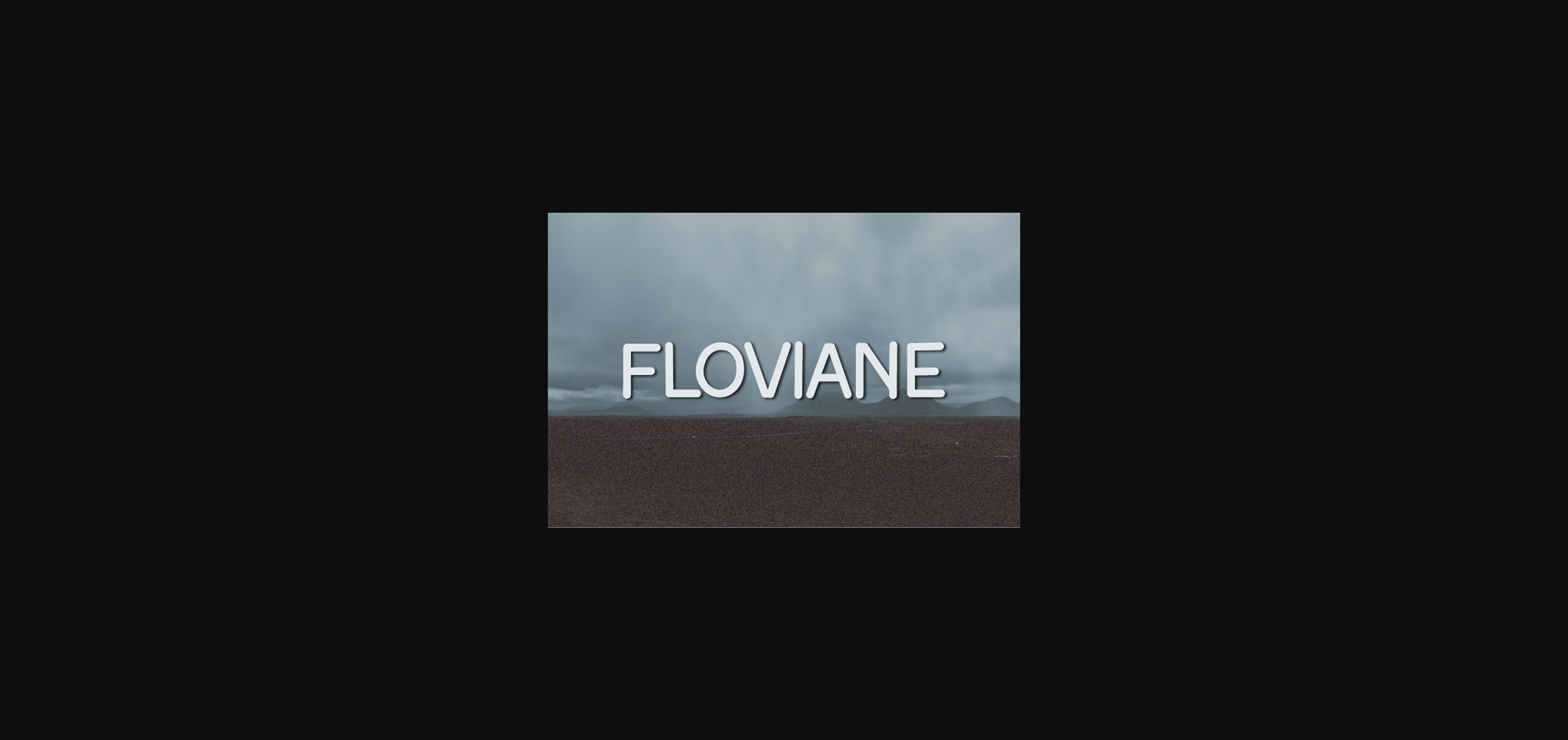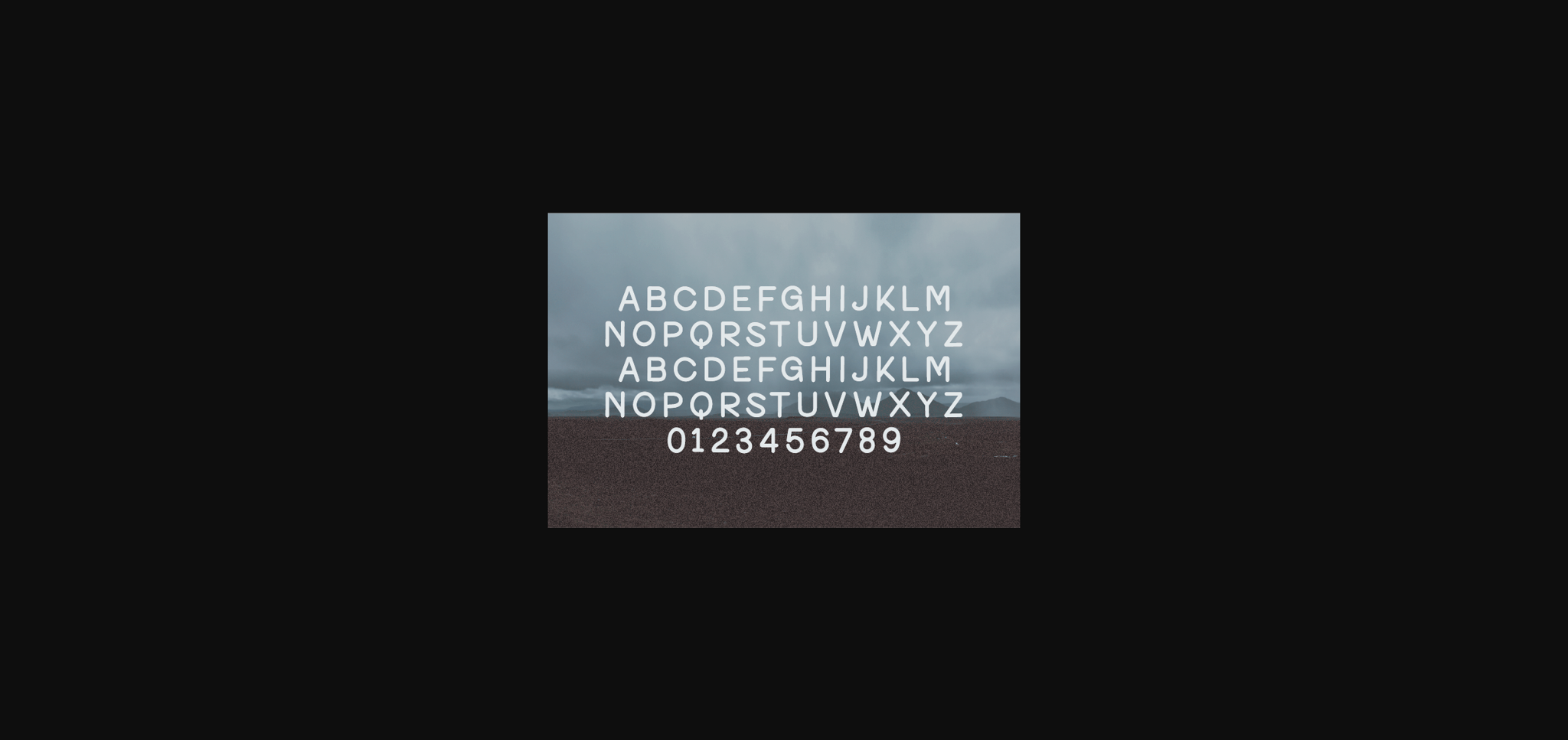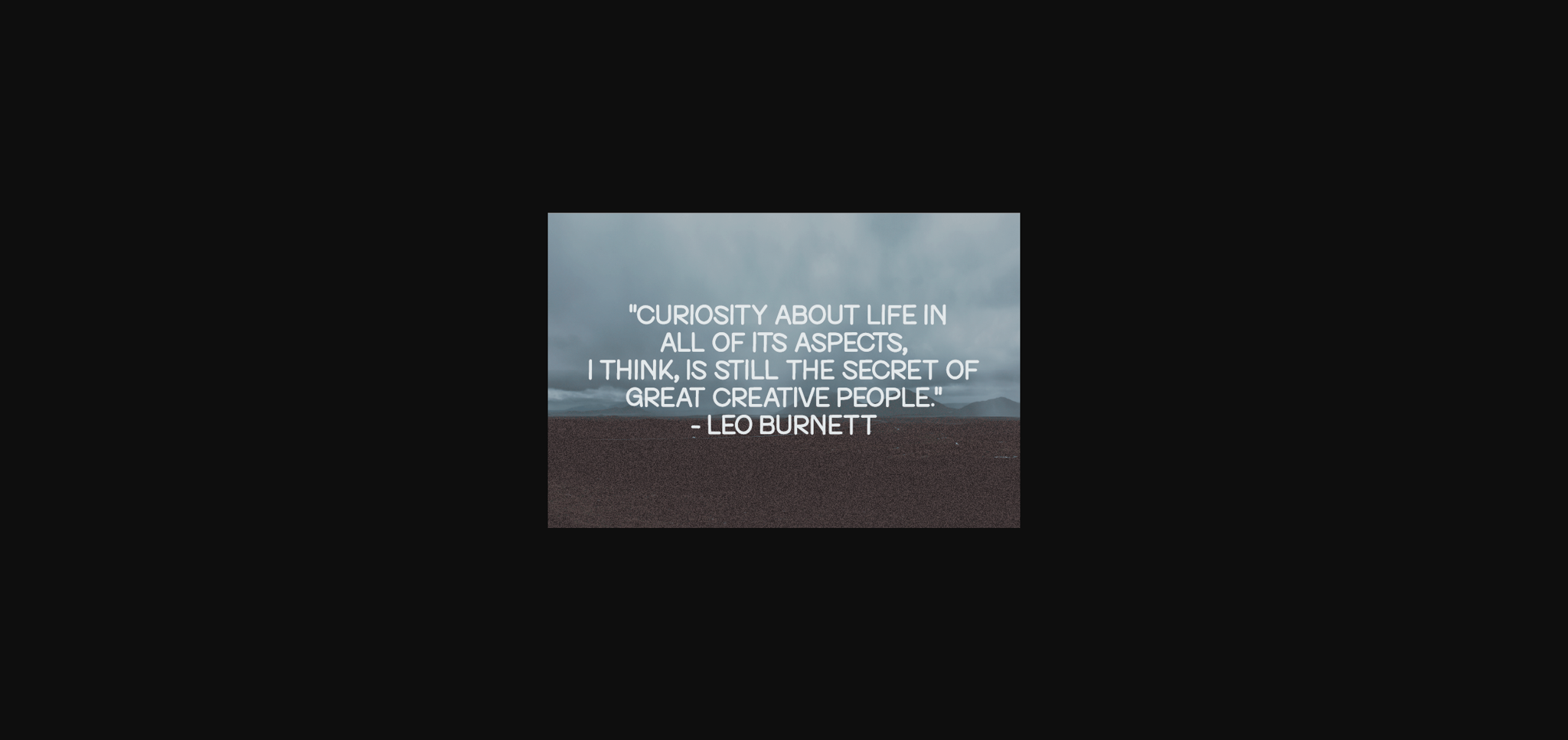
HomeSans Serif FontsFloviane Font Sans Serif Fonts Floviane Font FacebookXPinterestWhatsApp 1 of 6 ... Floviane Font Poster 2... Floviane Font Poster 3... Floviane Font Poster 4... Floviane Font Poster 5... Floviane Font Poster 6... About Floviane Font Floviane is a natural sans serif font made without changing a single node in each character’s indentation- this makes this font very interesting and unique. Perfect for quotes, notes, tees, and any product design. DOWNLOAD NOW People also explored Dollicious Eats Font Roses in Barcelona Font Teacher Jump Font Romantic Soul Font Karima Font Fireclay Font Sabrina Darwin Font Royalblue Font Jubie 294 0 TagsFloviane Font Previous articleNarcissus FontNext articleDemetrius Font LEAVE A REPLY Cancel reply Comment: Please enter your comment! Name:* Please enter your name here Email:* You have entered an incorrect email address! Please enter your email address here Website: Save my name, email, and website in this browser for the next time I comment. Personal Use Free Stone Garden Personal Use Free Read more about this font Pan Pizza Personal Use Free Read more about this font Darla Personal Use Free Read more about this font Banana Valentine Personal Use Free Read more about this font BLOG Free Fonts Risk: Why Free Fonts Can Be Dangerous for Designers Free Fonts Risk: Why Free Fonts Can Be Dangerous for Designers Using free fonts is a common practice in web and graphic design. However, the... Best Fonts for T-Shirt Design – Top 2025 Picks Where to Buy American Fonts Online in 2024 Free vs Paid Fonts: Why Investing in Premium Fonts Is Worth It